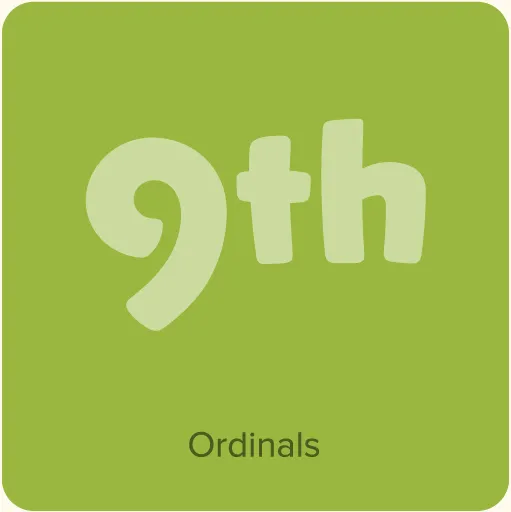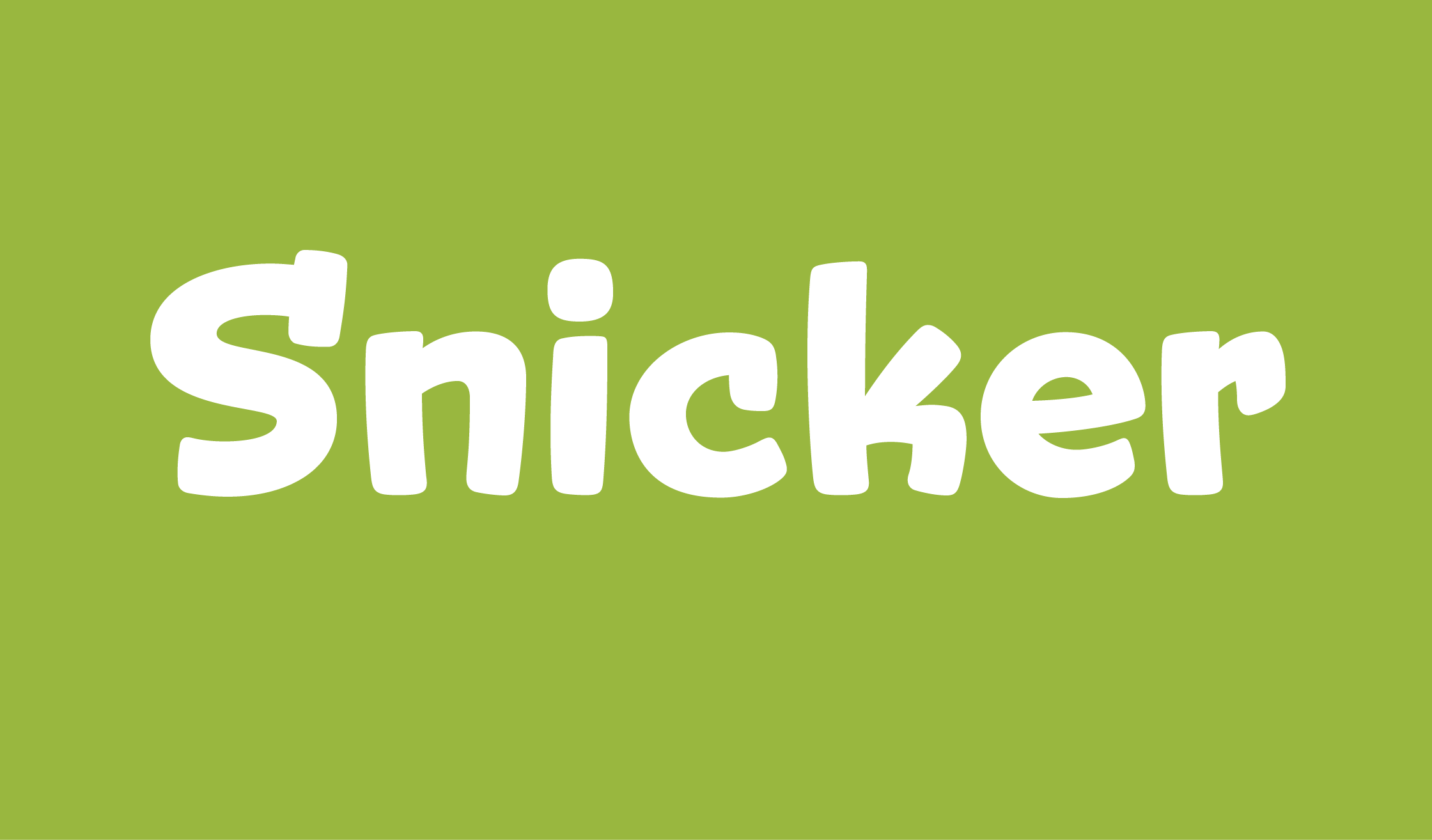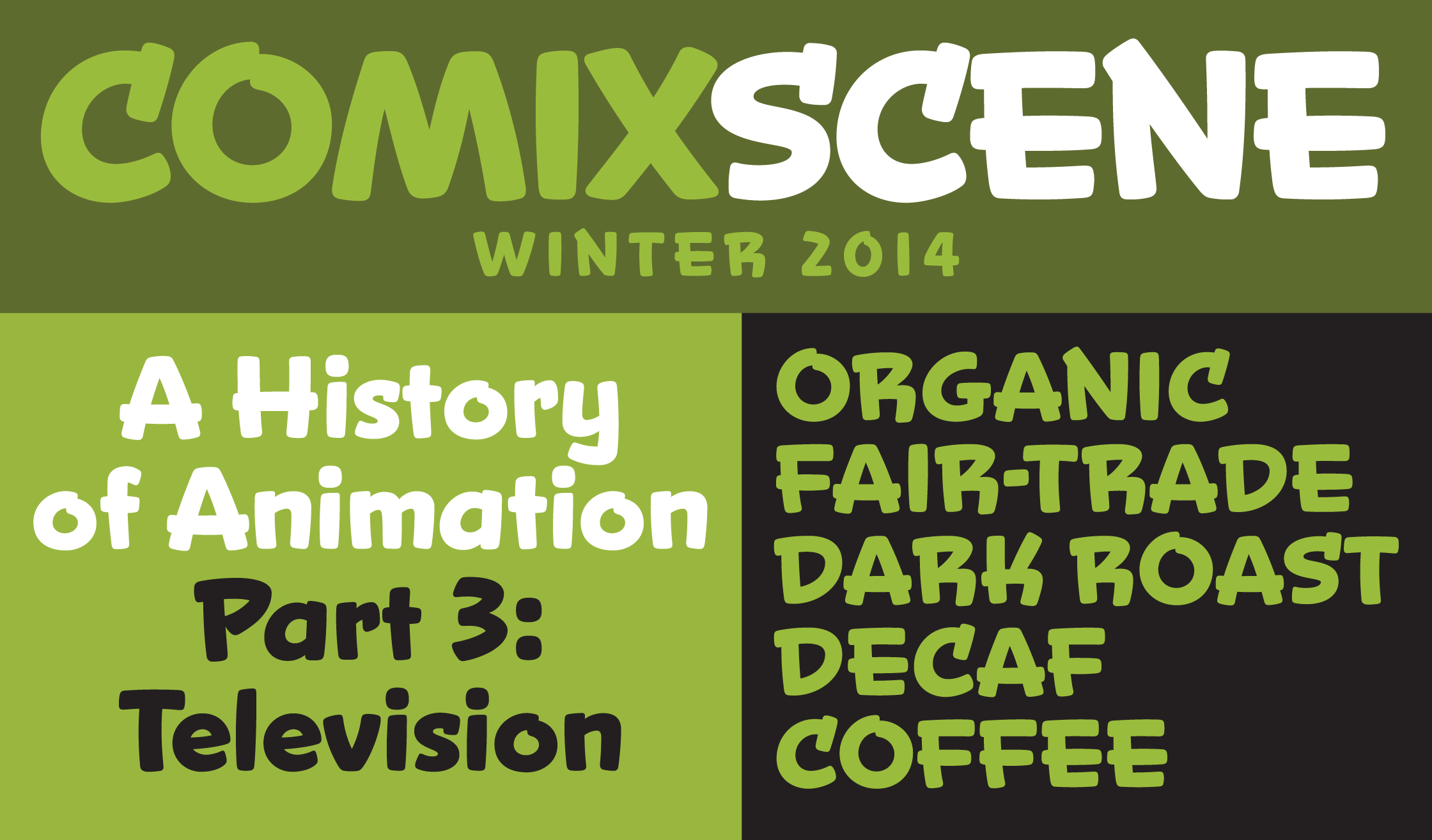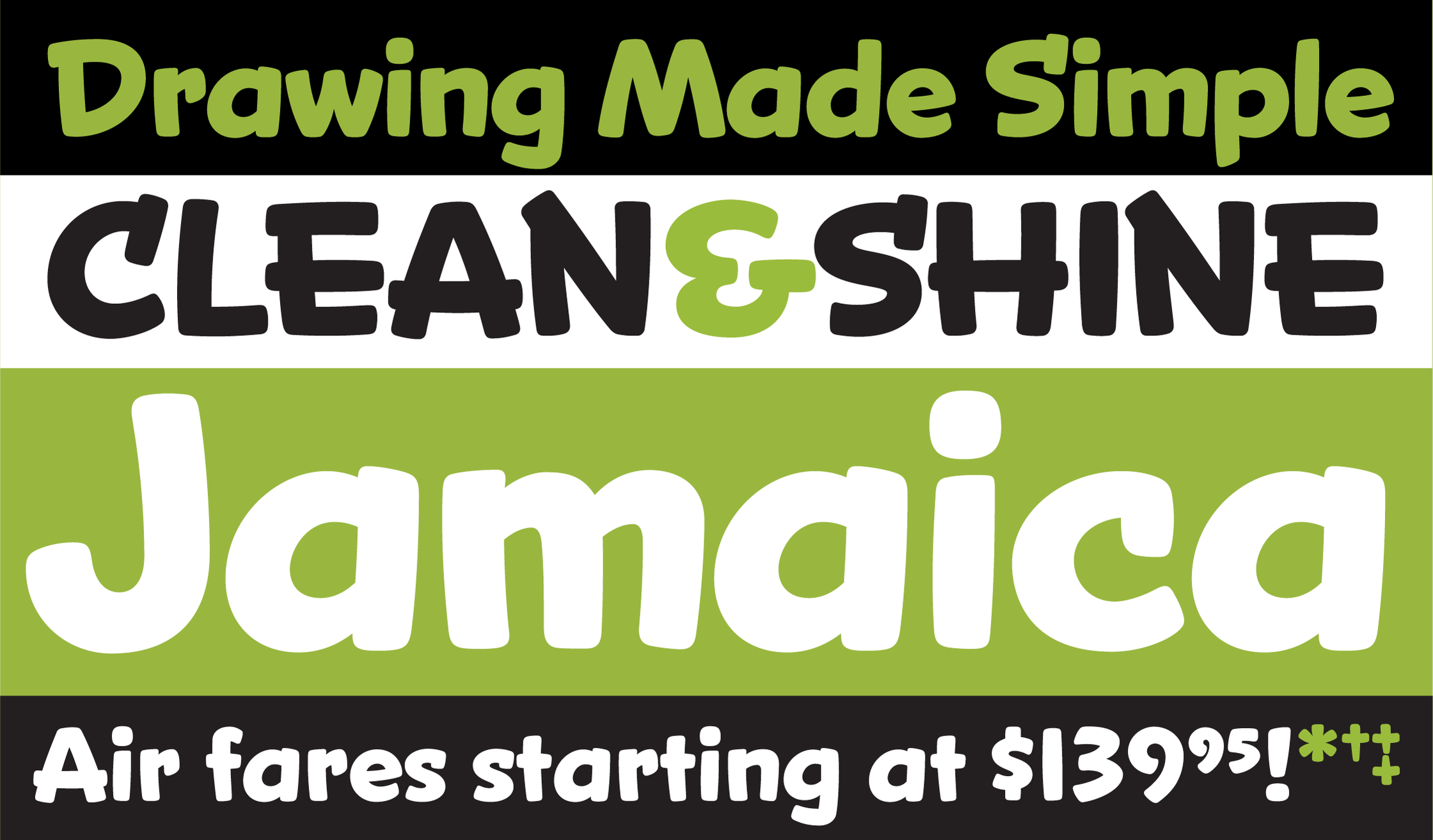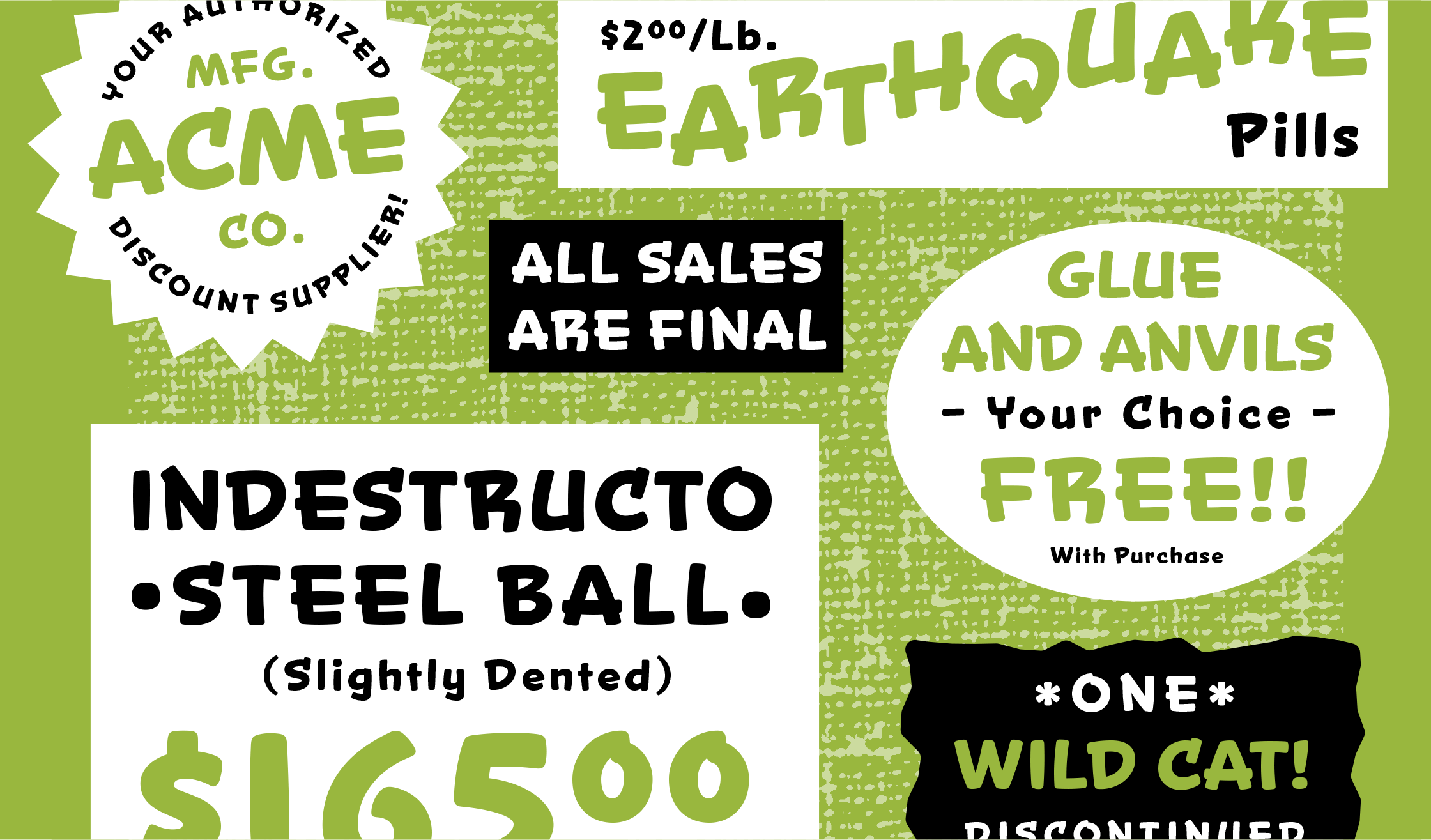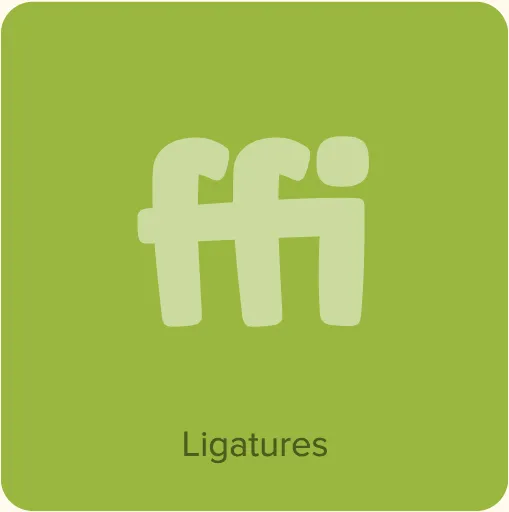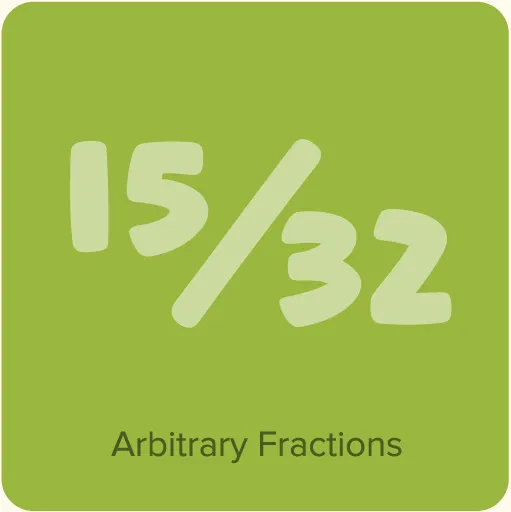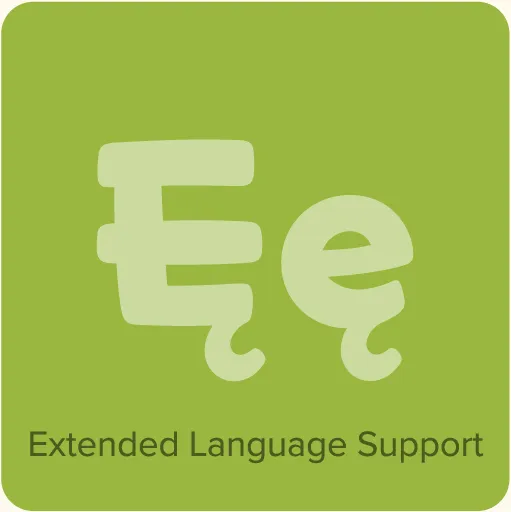
Snicker (2007) is a playful 1940s-style brush-lettered sans serif, inspired by hand-lettered titles in Fleischer Brothers’ Superman cartoon series. Although I used that as a starting point, there was much room for interpretation, and many characters had to be invented. Currently, Snicker has only one weight, Bold, but I hope one day to add more weights and create a more versatile family. Snicker was designed along side of and released with another Fleischer Brothers-inspired design, Kinescope.
Snicker Features
- Ligatures.
- Case-sensitive forms.*
- Automatic, arbitrary fractions.*
- Automatic ordinals.*
- Extended language support for most Latin-based Western and Central European languages.